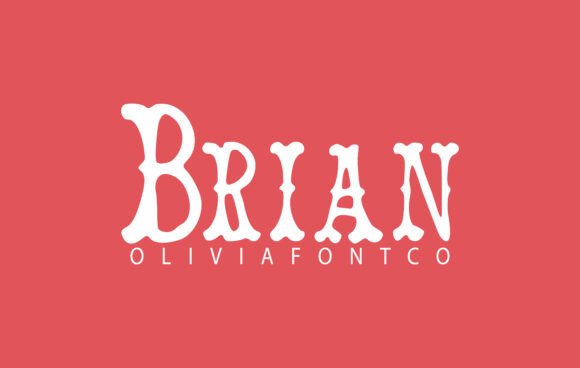
Brian Font: Elevating Small Business Branding
Using Brian Font for Authentic Handwritten Packaging Design
When I first started selling my handmade soy candles at local markets, I quickly realized that while my product smelled amazing, my packaging looked like a generic craft project rather than a premium brand. Choosing Brian was the turning point that transformed my simple glass jars into shelf-worthy products, proving that the right Fonts can completely alter customer perception. Although Brian font is an authentic handwritten font with a romantic touch, it possesses enough structural weight to function beautifully alongside traditional Slab Serif typefaces in a packaging hierarchy. I remember sitting at my kitchen table, printing test labels and feeling a wave of relief as I saw how this typeface added a layer of artisanal credibility that standard system fonts simply could not provide.
The specific charm of Brian lies in its ability to feel personal without looking messy, which is crucial when you are trying to convey quality through visual design. For my candle labels, I needed something that whispered "hand-poured with love" but still shouted "professional safety standards," and this font bridged that gap perfectly. It is expertly designed to be a true favorite for makers because it retains legibility even on curved surfaces or textured paper stocks. When customers picked up my candles, they weren't just reading a scent name; they were experiencing a tactile brand moment that felt intentional and warm. This shift from generic to bespoke typography didn't just make my booth look better; it justified a price point that reflected the actual value of my work.
Brian Font for Social Media Graphics and Digital Storytelling
Transitioning from physical markets to an online shop required me to rethink how Brian performs on screens, especially since digital Fonts must compete with scrolling thumbs and small mobile displays. While some might categorize display typography strictly under Slab Serif or bold sans serif styles for web use, Brian font is an authentic handwritten font with a romantic touch that surprisingly holds its own in Instagram stories and Pinterest pins. I started using it for quote overlays and new product announcements, and the engagement shift was palpable because the text felt like a note from a friend rather than a corporate advertisement. This font has the potential to take your creative ideas to the highest level by adding a human element to digital spaces that often feel sterile and overly curated.
One practical lesson I learned was using Brian sparingly for maximum impact in social media graphics. Instead of writing entire captions in a script style, which kills readability, I used it exclusively for headlines, key phrases, and call-to-action buttons. This strategic restraint ensured that my posts remained accessible while still carrying that signature romantic aesthetic. The font’s natural flow guides the eye across the image, creating a visual rhythm that stops the scroll. For small business owners managing their own marketing, this typeface acts as a built-in stylist, instantly elevating Canva templates or custom graphics without requiring advanced design skills. It turns a standard promotional post into a piece of brand storytelling that resonates emotionally with followers.
Pairing Brian Font with Clean Typography for Professional Menus
Expanding my business to include pop-up café collaborations meant I had to design menus where Brian served as the decorative anchor amidst highly functional body text. In the world of editorial and menu design, balancing expressive Fonts with utilitarian Slab Serif or sans serif options is essential for guiding customers through choices without causing visual fatigue. I found that Brian font is an authentic handwritten font with a romantic touch works exceptionally well for category headers like "Seasonal Lattes" or "Artisan Pastries," while leaving the descriptions and prices to a clean, neutral typeface. This pairing creates a sophisticated contrast that feels both elevated and approachable, signaling to customers that they are in for a special experience.
The key to successful font pairing with Brian is respecting whitespace and hierarchy. On my printed menus, I allowed the handwritten elements to breathe, giving them ample margin so they didn't feel crowded against the practical information. This spacing reinforces the romantic, unhurried vibe that the font naturally exudes. For other entrepreneurs designing price lists, service menus, or lookbooks, this approach ensures that the decorative typography enhances rather than obscures the transaction. It transforms a mundane list of items into a curated selection, making customers feel more confident in their purchases. The font acts as a visual cue for quality, suggesting that the same care put into the lettering was also put into the product or service being offered.
Versatility is where Brian truly shines for a growing small business. Beyond packaging and social media, I have successfully used it for thank-you card inserts, email newsletter headers, and even embroidered hat designs. The font’s robust construction means it doesn't lose its character when scaled down for a sticker or blown up for a market banner. However, readability remains paramount; I always test print sizes before committing to a bulk order, ensuring that the romantic loops remain distinct and don't bleed together on porous materials. For entrepreneurs building a cohesive brand identity, investing time in mastering this typeface pays dividends. It provides a consistent visual thread that ties disparate touchpoints together, making a one-person operation look like an established, thoughtful brand with a clear vision and a loyal following.